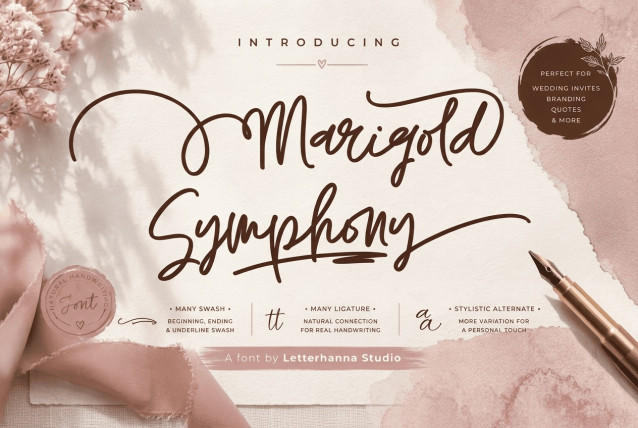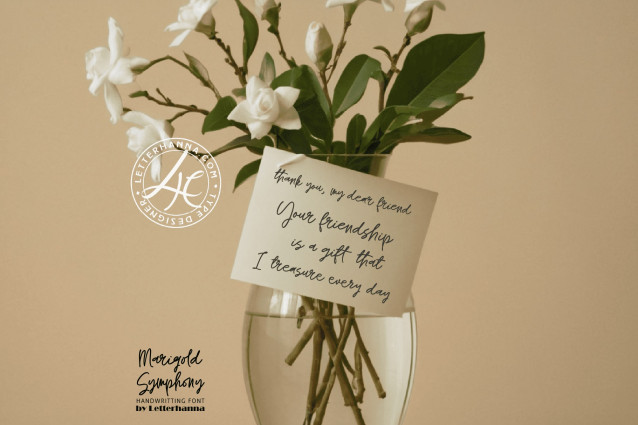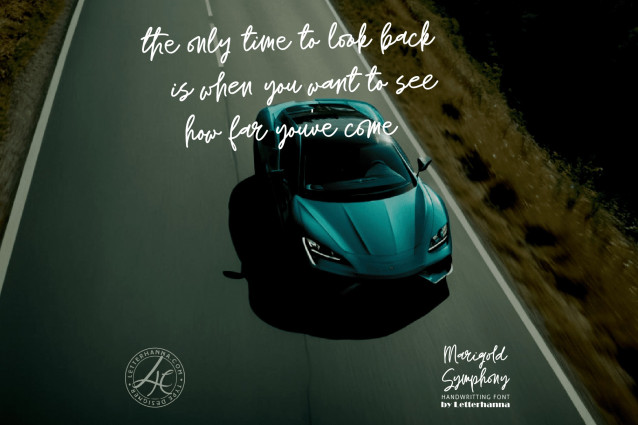
Marigold Symphony Font
Marigold Symphony Font – There’s a particular kind of magic that happens when a couple sits down to choose the words that will announce their new life together. Long before the flowers are ordered or the venue is booked, there’s a font — a quiet decision that somehow carries all the warmth of the day itself. If you’re searching for a married font that feels like it was written by hand on a slow, golden afternoon, let us introduce you to Marigold Symphony.
Marigold Symphony is a flowing script typeface built for exactly this kind of moment. It’s soft where it needs to be soft, bold where it needs to be bold, and endlessly romantic in between. Whether you’re designing save-the-dates, place cards, or the invitation suite itself, this font brings a sense of intimacy that printed text rarely achieves — the feeling that someone actually sat down and wrote your names with care.